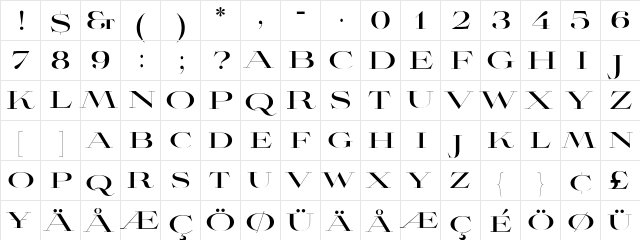
AvianoDidone Bold
Design Context for AvianoDidone Typeface
AvianoDidone is a composed and adaptable typeface that performs quietly and consistently across a wide range of design contexts. The heavy weight commands attention and anchors typographic hierarchies.